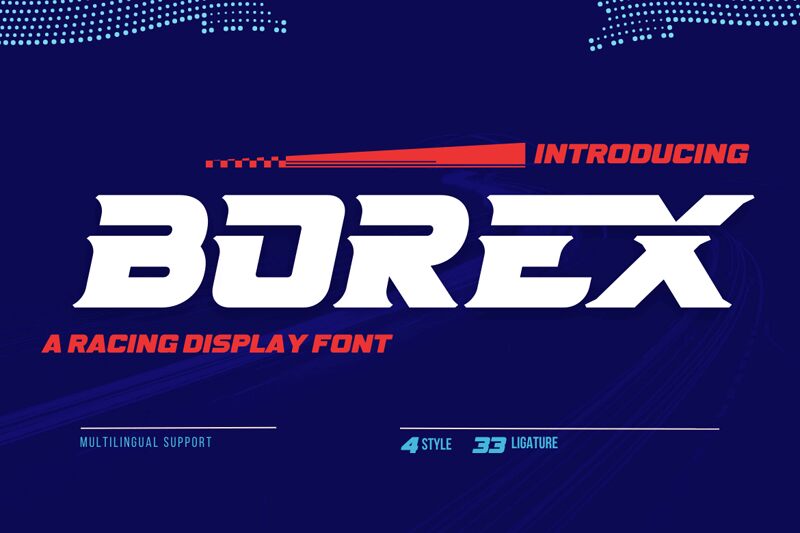
Borex Slant, from the Borex family and crafted by Twinletter, is a serif font that exudes confidence with its bold strokes and expanded character set. Its pronounced serifs add a touch of tradition, while the slanted design injects dynamism, making it both grounded and energetic. The font's assertive presence is softened by subtle curves, lending it a friendly yet authoritative voice.
This typeface is particularly well-suited for headings and titles where its distinct slant can be leveraged for visual impact. Its robust form makes it ideal for branding projects, editorial headlines, and advertising campaigns that require a font with character and presence. Whether on print or digital platforms, Borex Slant commands attention while maintaining readability-a versatile choice for designers seeking to make a strong statement.